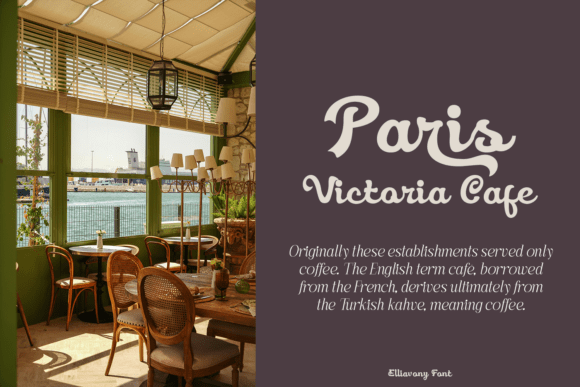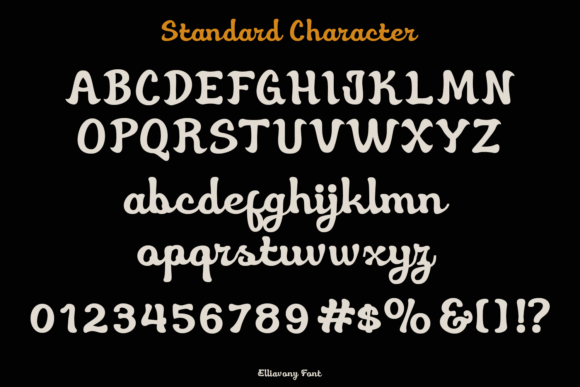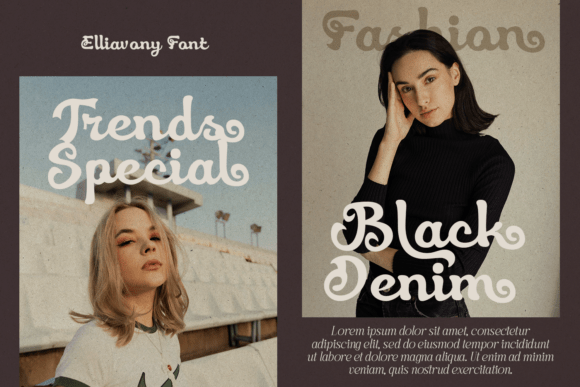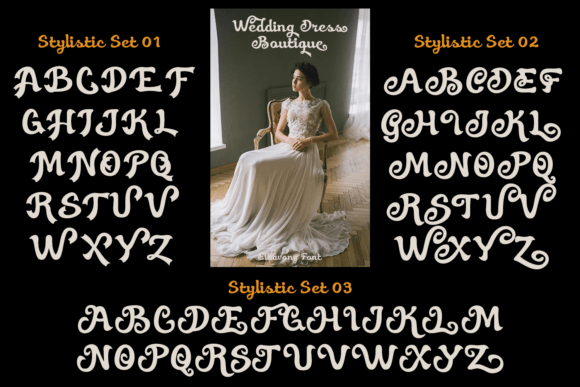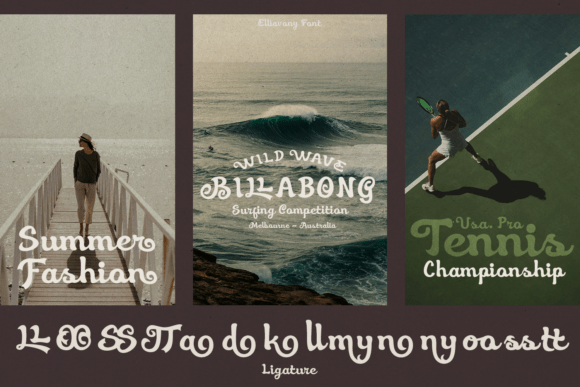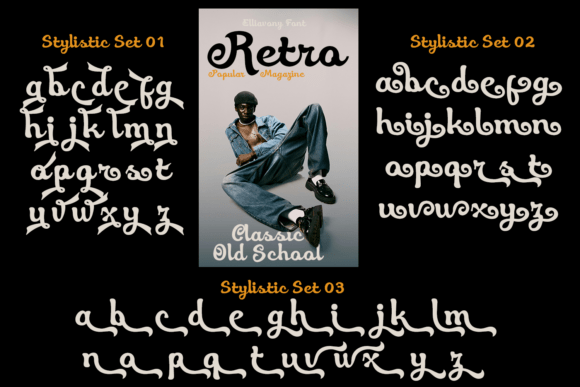
Introduction to Eliavony Font
Eliavony is a retro script that comes with a 70s retro style.
You can explore and combine to create a rhythm for comfortable reading Bold and readable, carefully creating every glyph, designing beautiful, simple words with this font.
Key Features of Eliavony Font